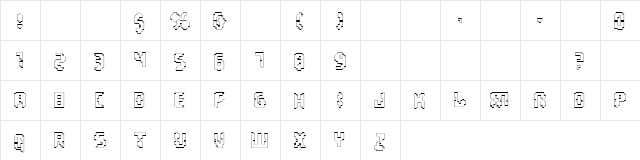
Invaders Part Two Outline Regular Font Preview
Invaders Part Two Outline Regular
Invaders Part Two Outline Regular Font Details
Design Context for Invaders Part Two Outline Typeface
Invaders Part Two Outline is built around its visual character rather than neutral utility — its distinctive forms are designed to make an impression at display sizes.
Font Pairing: Pair with a clean neutral sans-serif for body copy to let Invaders Part Two Outline's character lead without overwhelming the composition.
Pro Tip: Treat Invaders Part Two Outline as the centrepiece of your typographic hierarchy. One strong heading set in a decorative face can carry an entire layout.